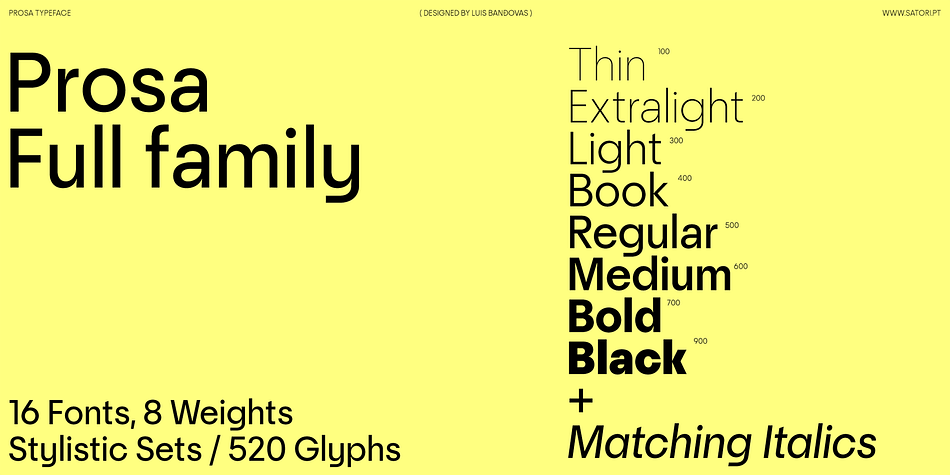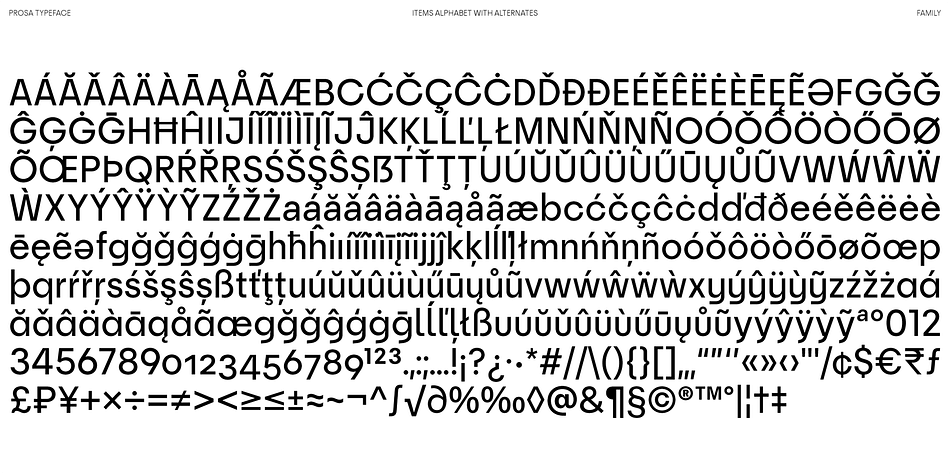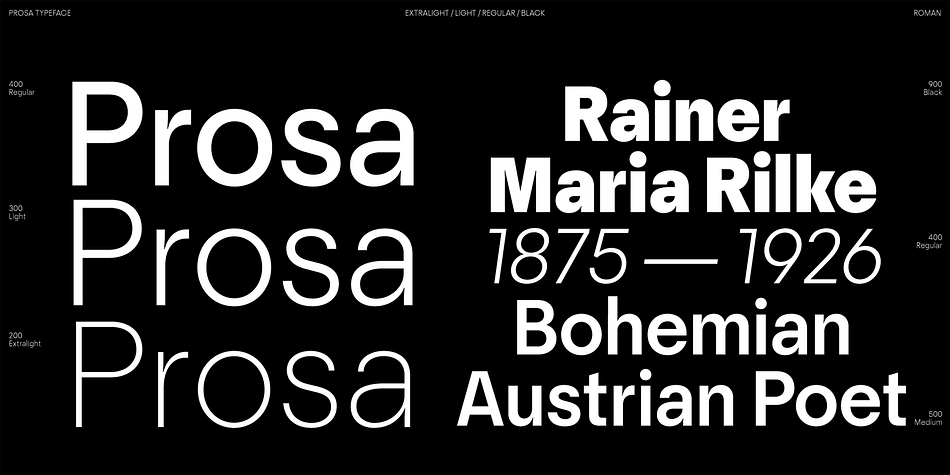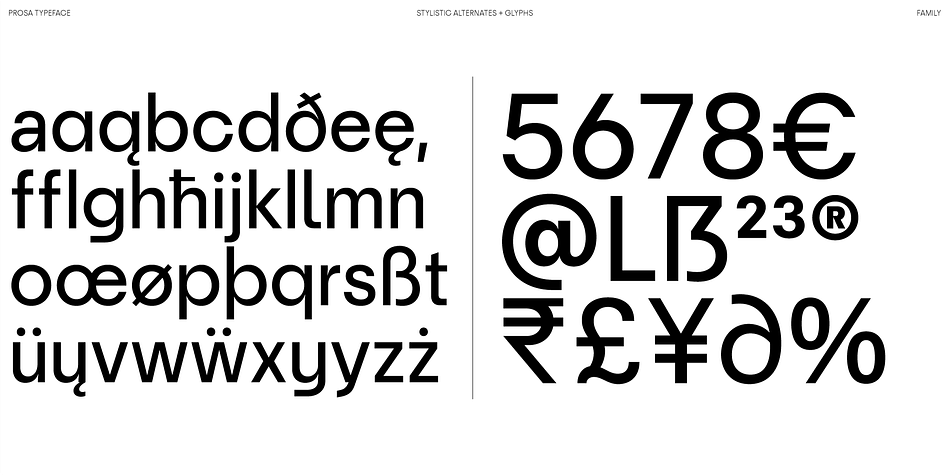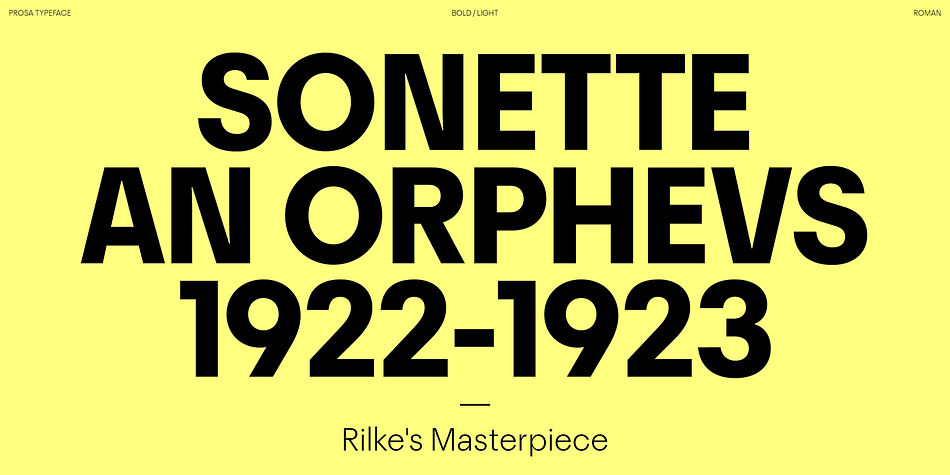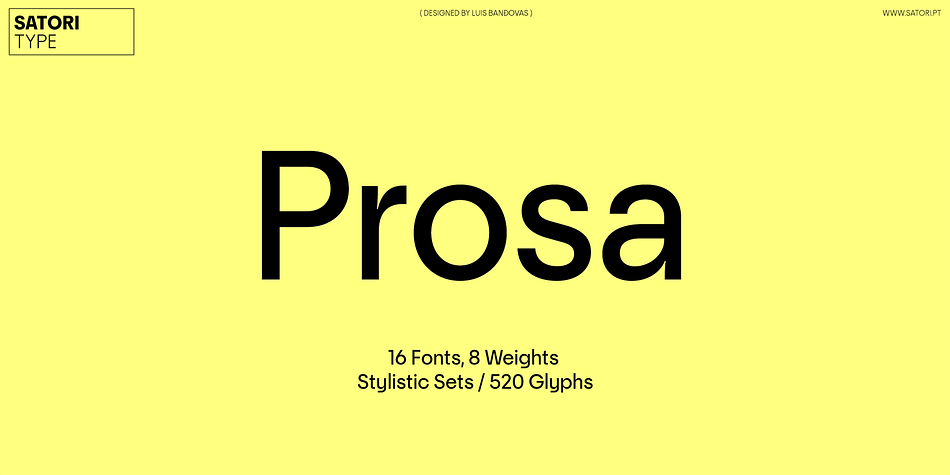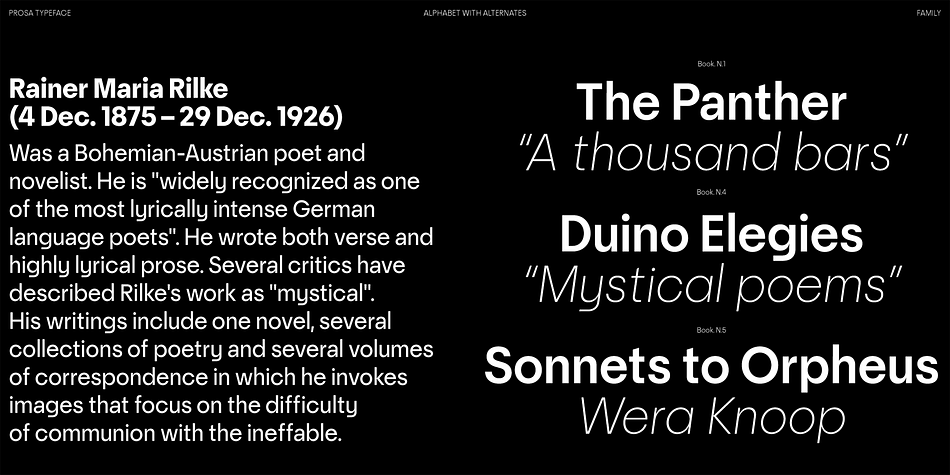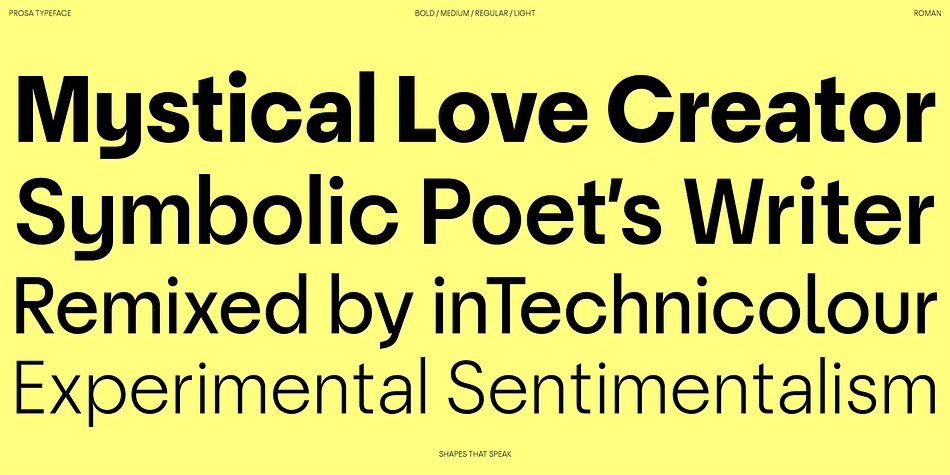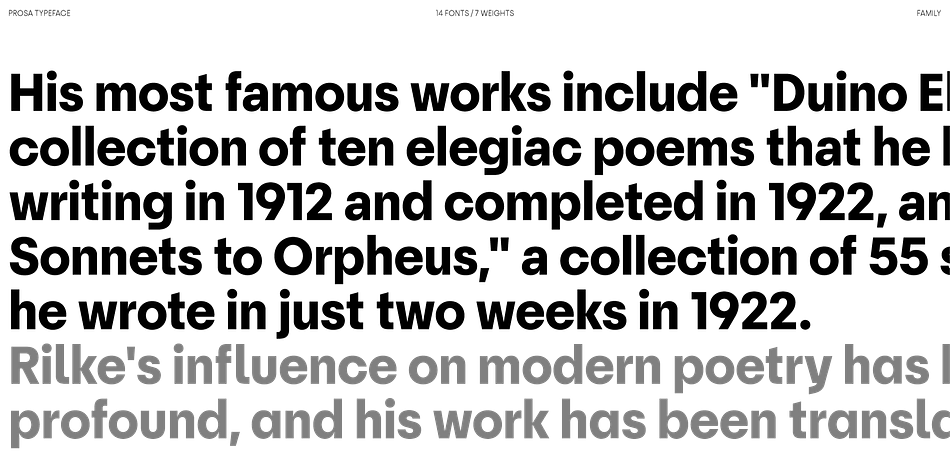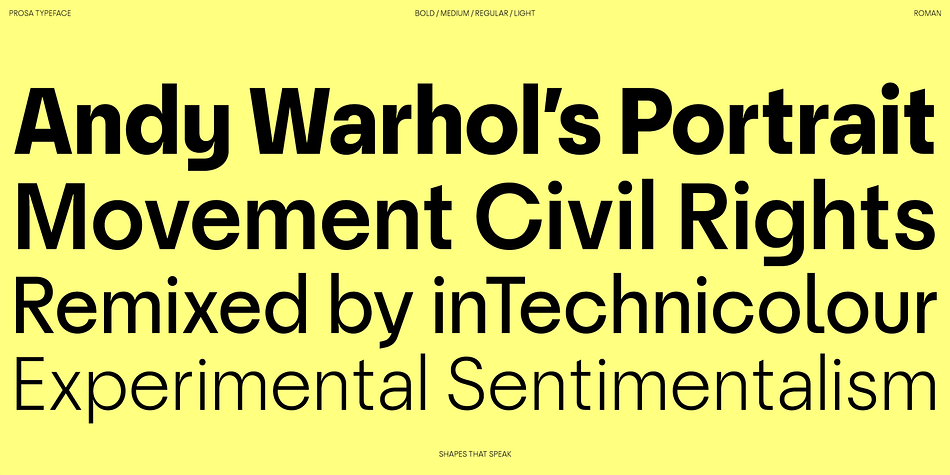
Prosa
Designed by Luis Bandovas, Prosa is a sans serif font family. This typeface has sixteen styles and was published by Satori.
Introducing Prosa - a modern geometric typeface that will bring your words to life. With its minimalistic design and sleek lines, whether you’re working on a book, a magazine, or a website, Prosa will help you create a look and feel that is both modern and timeless.
With a full range of weights and styles, Prosa is versatile enough to handle any project, from headlines to body copy. And with its clean lines and geometric forms, Prosa is both easy to read and pleasing to the eye.